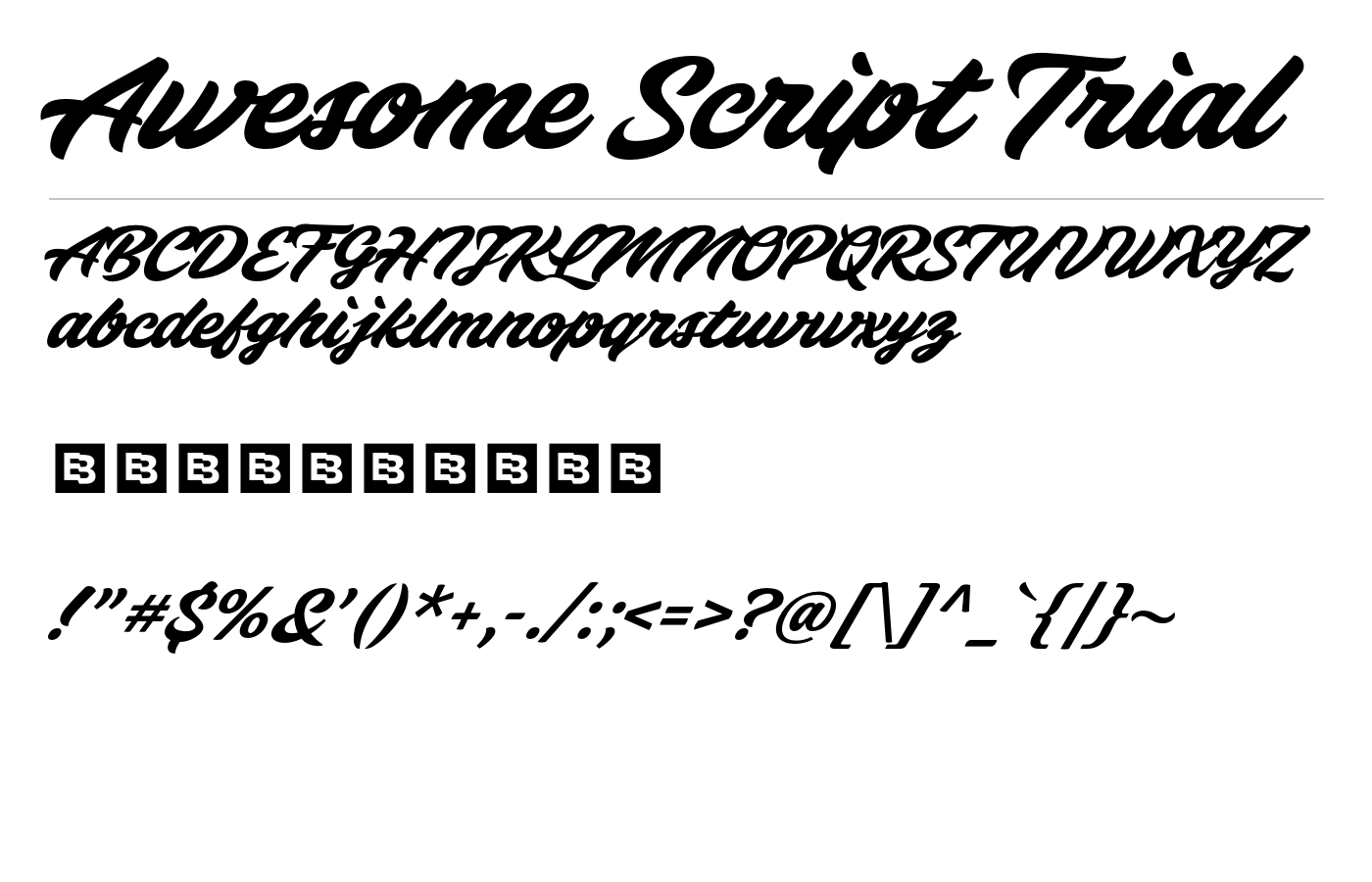
Awesome Script Trial is a bold, connected script font with a smooth and flowing style that evokes a lively, energetic feel. Its thick strokes and italic slant give it a dynamic and confident personality, making it perfect for branding, logos, and headlines that want to convey a sense of creativity and approachability. This font works well in contexts where a playful yet strong script presence is desired, such as fashion, packaging, and expressive editorial projects.
Awesome Script Trial Font
About Awesome Script Trial Font